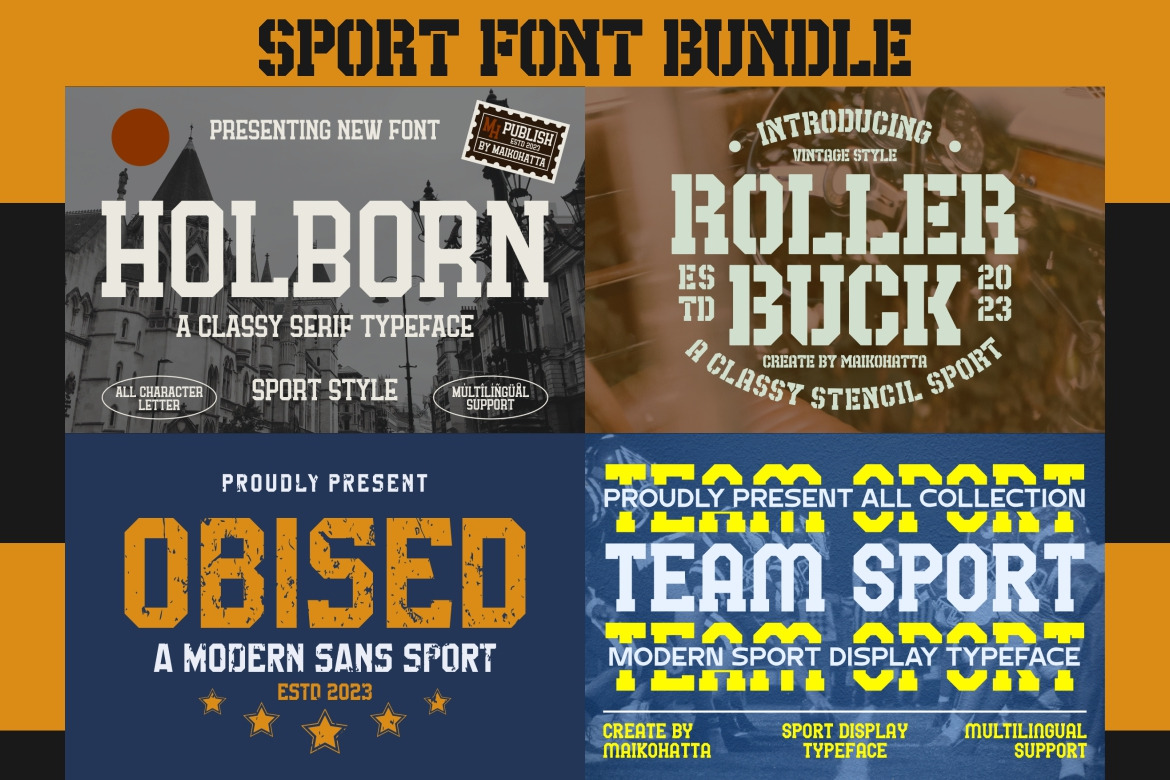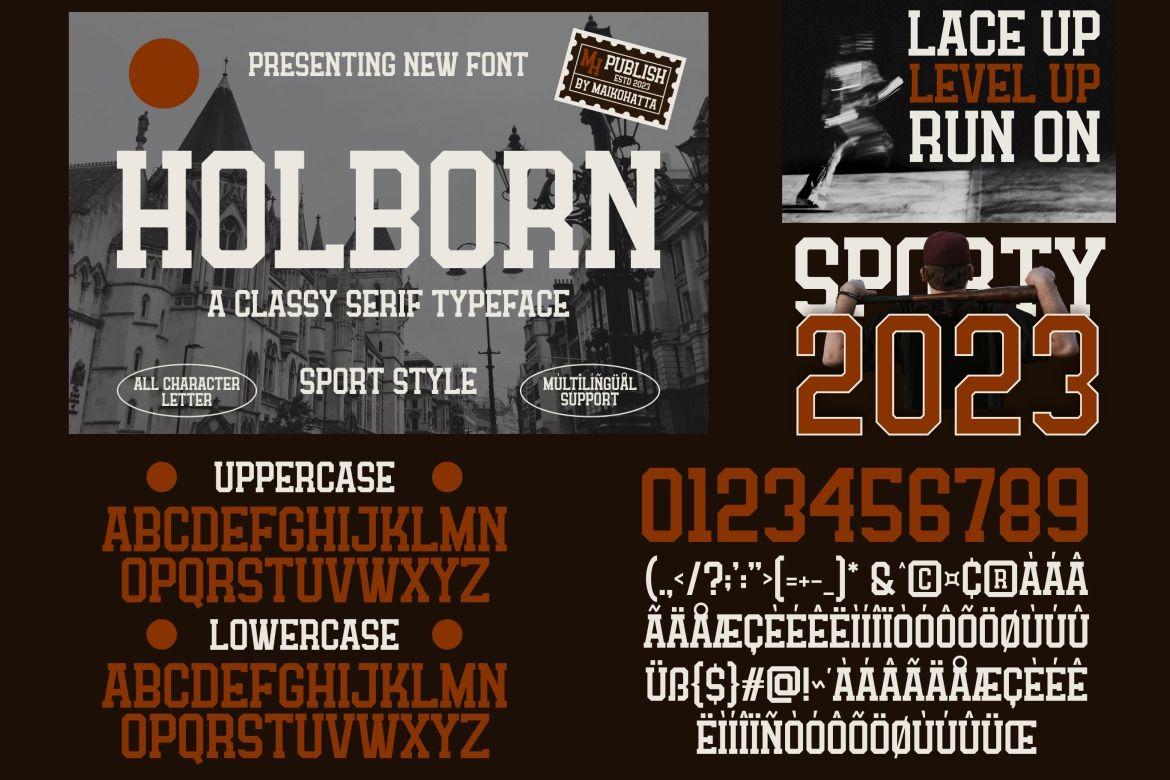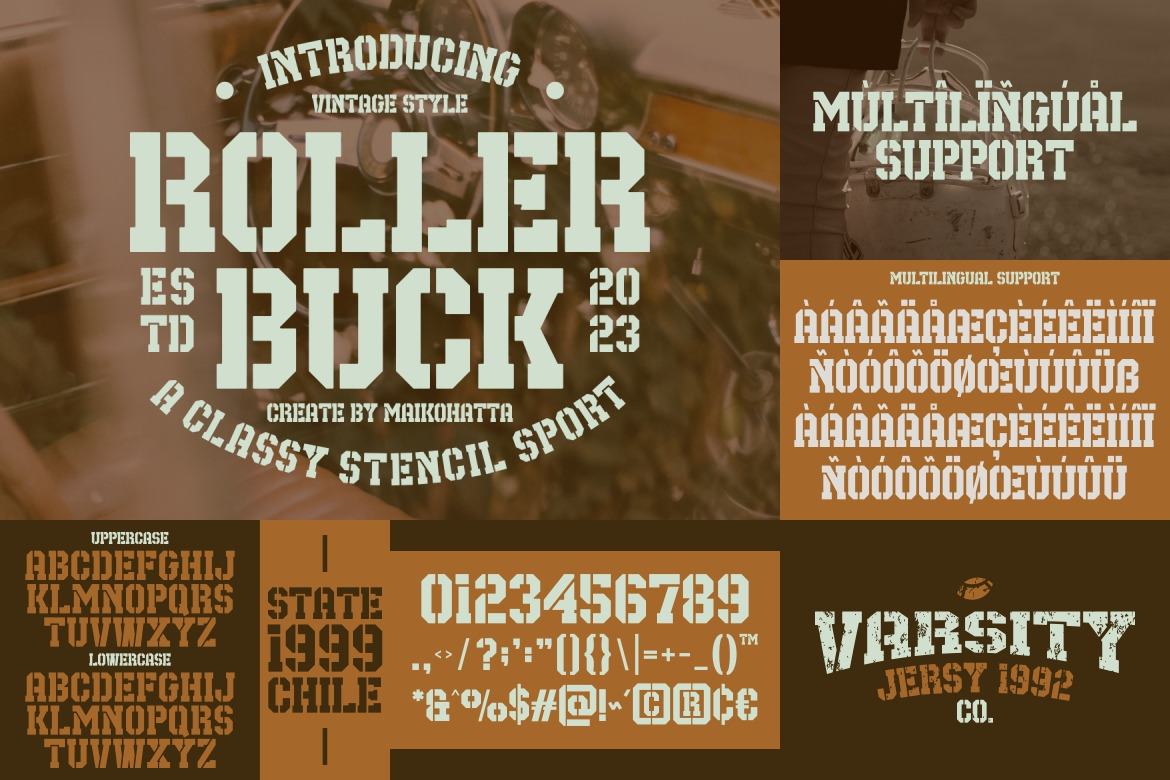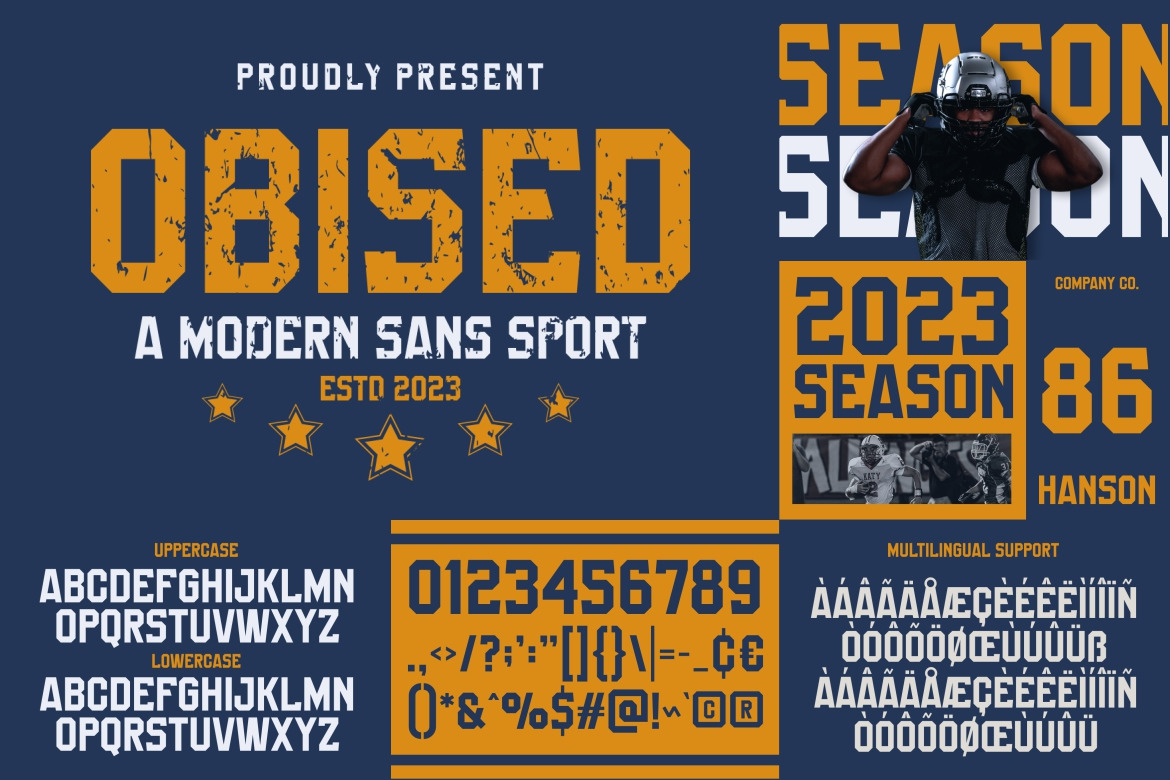
Sport Font Bundle
This font bundle is designed to reflect the dynamic spirit, energy, and toughness often associated with physical activity and sports. This font can be used in the brand identity of sports teams, sports companies, and major sporting events. This font design can contribute to creating a strong visual appeal, as well as building an emotional connection with the audience that is associated with the spirit of competition and achievement.